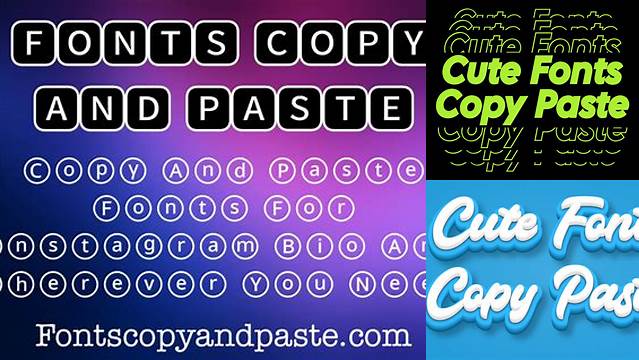
Cute Fonts: Copy & Paste For Stylish Text [2024 Guide]
Are you looking to add some pizzazz to your online presence? Do you want your social media posts, messages, and documents to stand out from the crowd? Well, my friends, you've come to the right place! In this comprehensive guide, we'll dive into the wonderful world of cute fonts copy paste. We'll explore what they are, where to find them, and how to use them to create eye-catching content that truly reflects your personality and style. So, buckle up and get ready to transform your text into a visual masterpiece!
What are Cute Fonts Copy Paste?
Let's start with the basics: what exactly are cute fonts copy paste? These aren't your standard, run-of-the-mill fonts that come pre-installed on your computer. Instead, they are special characters and symbols that are designed to look like different fonts. Think of them as textual decorations that add flair and personality to your words. These cute fonts aren't actual fonts in the traditional sense, but rather clever combinations of Unicode characters that mimic various font styles. Unicode is a universal character encoding standard that assigns a unique number to virtually every character, symbol, and glyph across different languages and platforms. This allows for consistent display of text across various devices and systems. Cute fonts leverage this vast array of characters to create stylized text effects.
Why are they called "copy paste" fonts? Because the way you use them is by copying the text generated in a cute font style from a website or app and pasting it into your desired platform, whether it's Instagram, Facebook, Twitter, or even a document editor. The magic lies in the fact that these special characters are rendered as visual elements rather than standard text, allowing you to bypass the limitations of the font options available on a particular platform. This opens up a world of creative possibilities, enabling you to express yourself in unique and visually appealing ways. Using these fonts is super easy; you don't need to download or install anything. It's all about finding the right generator, typing your text, and copying the result. Then, you can paste it anywhere you want – social media, messages, documents, you name it!
Think of these fonts as a way to spice up your digital communication. They're perfect for adding a touch of personality to your social media bios, making your captions more engaging, or even creating unique headings for your documents. The possibilities are endless! And the best part? It's all incredibly easy and accessible, even for those who aren't tech-savvy. So, if you're looking for a way to make your text stand out, cute fonts copy paste is definitely worth exploring. It's a fun, creative, and effective way to express yourself online. Embrace the world of stylized text and let your personality shine through your words!
Why Use Cute Fonts?
So, why should you bother with cute fonts? What's the big deal? Well, let's break it down. In today's digital world, standing out from the crowd is more important than ever. Whether you're trying to build a brand, connect with friends, or simply express yourself, visual appeal is key. Cute fonts offer a simple yet powerful way to grab attention and make a lasting impression.
Eye-Catching Appeal: Let's face it, standard fonts can be a little boring. Cute fonts, on the other hand, are designed to be visually appealing. They come in a variety of styles, from elegant and whimsical to bold and playful, allowing you to choose the perfect font to match your message and personality. Imagine scrolling through your social media feed and seeing a post written in a unique, eye-catching font. It's bound to grab your attention, right? That's the power of cute fonts. They help your content stand out in a sea of sameness, making it more likely to be noticed and engaged with.
Expressing Personality: Your font choice can say a lot about you. A bubbly, cursive font might convey a sense of playfulness and creativity, while a bold, sans-serif font might project confidence and professionalism. Cute fonts allow you to express your personality and style in a way that standard fonts simply can't. Whether you're a fan of quirky and whimsical designs or prefer something more elegant and refined, there's a cute font out there to match your unique taste. This ability to personalize your text adds a layer of authenticity to your online presence, helping you connect with your audience on a deeper level. When your text reflects your personality, it becomes more relatable and engaging, fostering a stronger connection with your readers.
Social Media Engagement: If you're active on social media, you know how important it is to create content that resonates with your audience. Cute fonts can help you boost engagement by making your posts more visually appealing and shareable. A well-chosen font can turn a simple caption into a work of art, encouraging your followers to like, comment, and share your content. On platforms like Instagram, where visual content reigns supreme, using cute fonts can be a game-changer. They add a touch of flair to your bio, captions, and stories, making your profile more attractive and memorable. Similarly, on Twitter, where character count is limited, using a cute font can help your tweets stand out in a busy timeline. By making your text more visually appealing, you increase the chances of it being noticed and shared, ultimately expanding your reach and influence on social media.
Versatility: Cute fonts aren't just for social media. They can be used in a variety of contexts, from creating eye-catching headlines for your blog posts to designing unique invitations for your next party. Their versatility makes them a valuable tool for anyone looking to add a touch of creativity to their text. Imagine crafting a birthday invitation with a whimsical, hand-lettered font, or designing a business presentation with a sleek and modern font. The possibilities are endless. Cute fonts can elevate your content across various platforms and mediums, making them a versatile asset in your creative toolkit. Whether you're a student, a professional, or a hobbyist, incorporating cute fonts into your projects can add a touch of sophistication and personality, helping you communicate your message more effectively.
No Installation Required: One of the best things about cute fonts copy paste is that you don't need to download or install anything. Simply use an online generator, type your text, and copy the result. It's quick, easy, and hassle-free. This accessibility makes them a perfect option for anyone who wants to experiment with different font styles without the commitment of installing new fonts on their device. The copy-paste functionality ensures that you can use these fonts across various platforms without compatibility issues. Whether you're using a desktop computer, a smartphone, or a tablet, you can easily access and utilize cute fonts to enhance your text. This convenience makes them an ideal solution for those who are constantly on the go and need to create visually appealing content quickly and efficiently.
Cute fonts copy paste are a fantastic way to add personality and flair to your online presence. They're easy to use, versatile, and can make your content stand out from the crowd. Whether you're looking to spice up your social media posts, create eye-catching headlines, or simply express yourself in a unique way, stylish fonts are a valuable tool to have in your creative arsenal. So go ahead, explore the world of cute fonts and let your personality shine through your text! With the right font and a little creativity, you can transform your words into a work of art. Remember to choose fonts that match your message, use them sparingly, and always prioritize readability. By following these guidelines, you can effectively leverage cute fonts to enhance your content and captivate your audience. Embrace the fun and versatility of cute fonts, and watch your text come to life with style and personality. So, what are you waiting for? Dive in and start experimenting with the endless possibilities of cute fonts copy paste! Let your creativity flow, and watch your text transform into visually stunning masterpieces that capture attention and leave a lasting impression. Happy font-ing, guys!